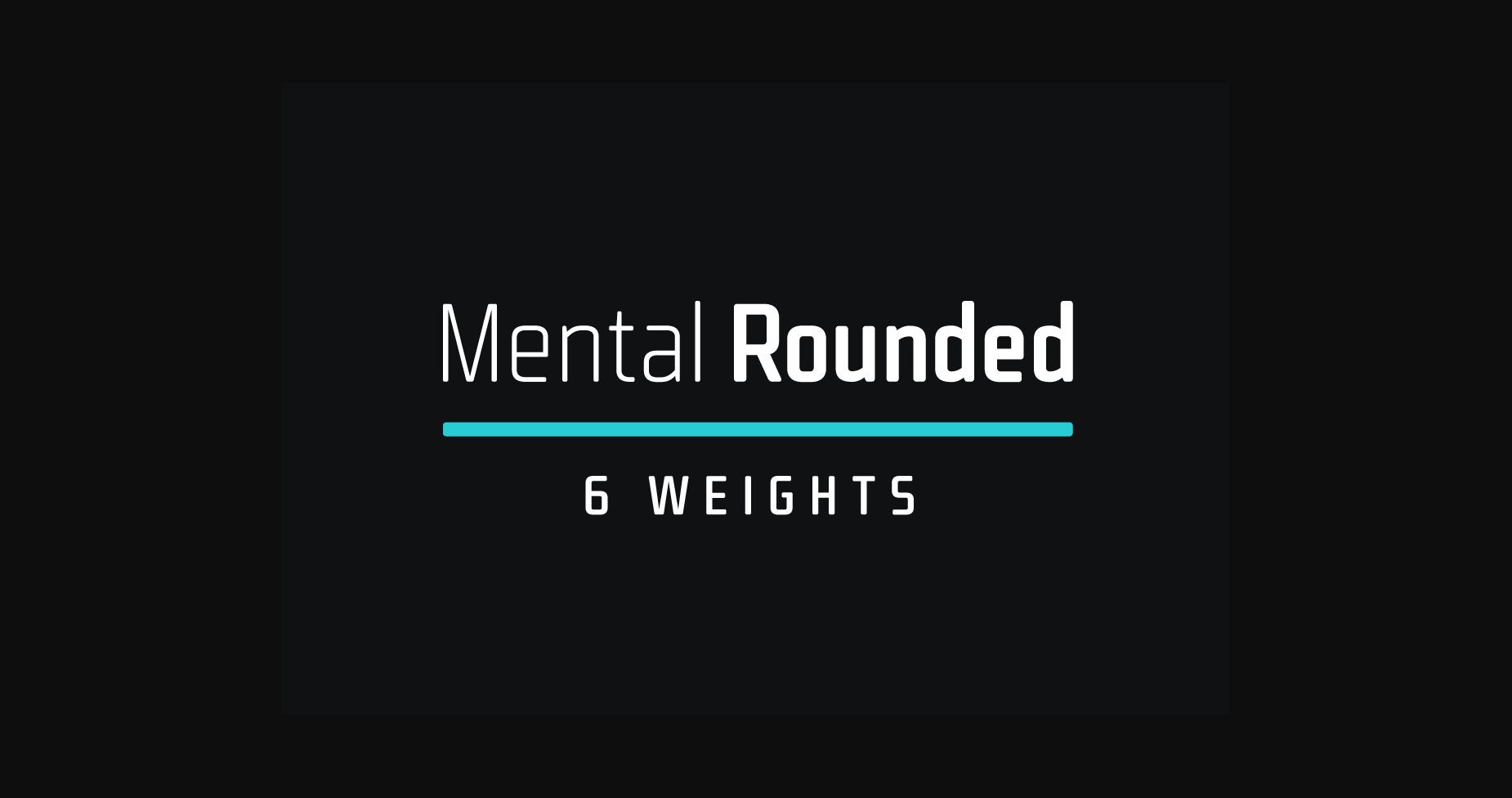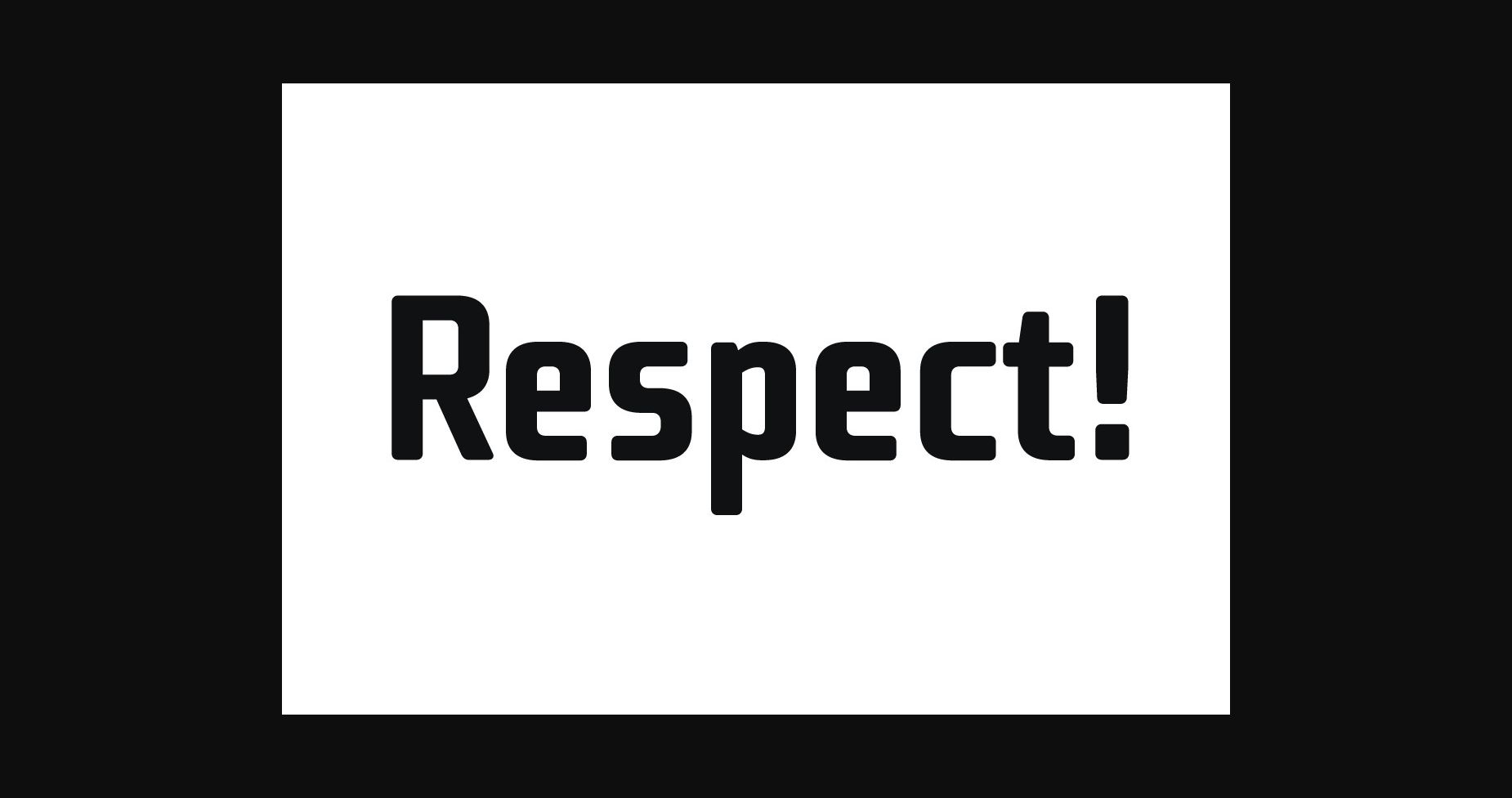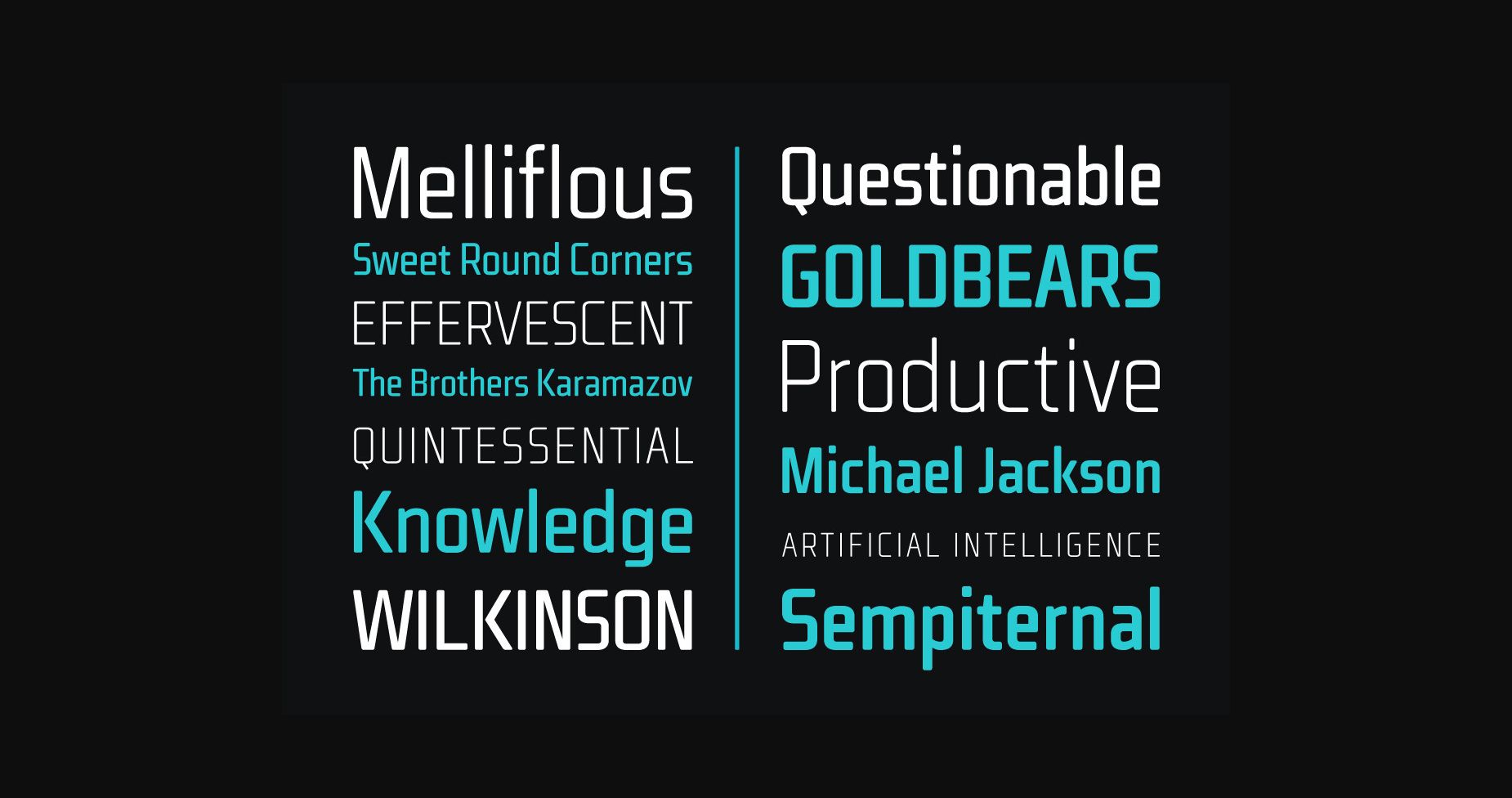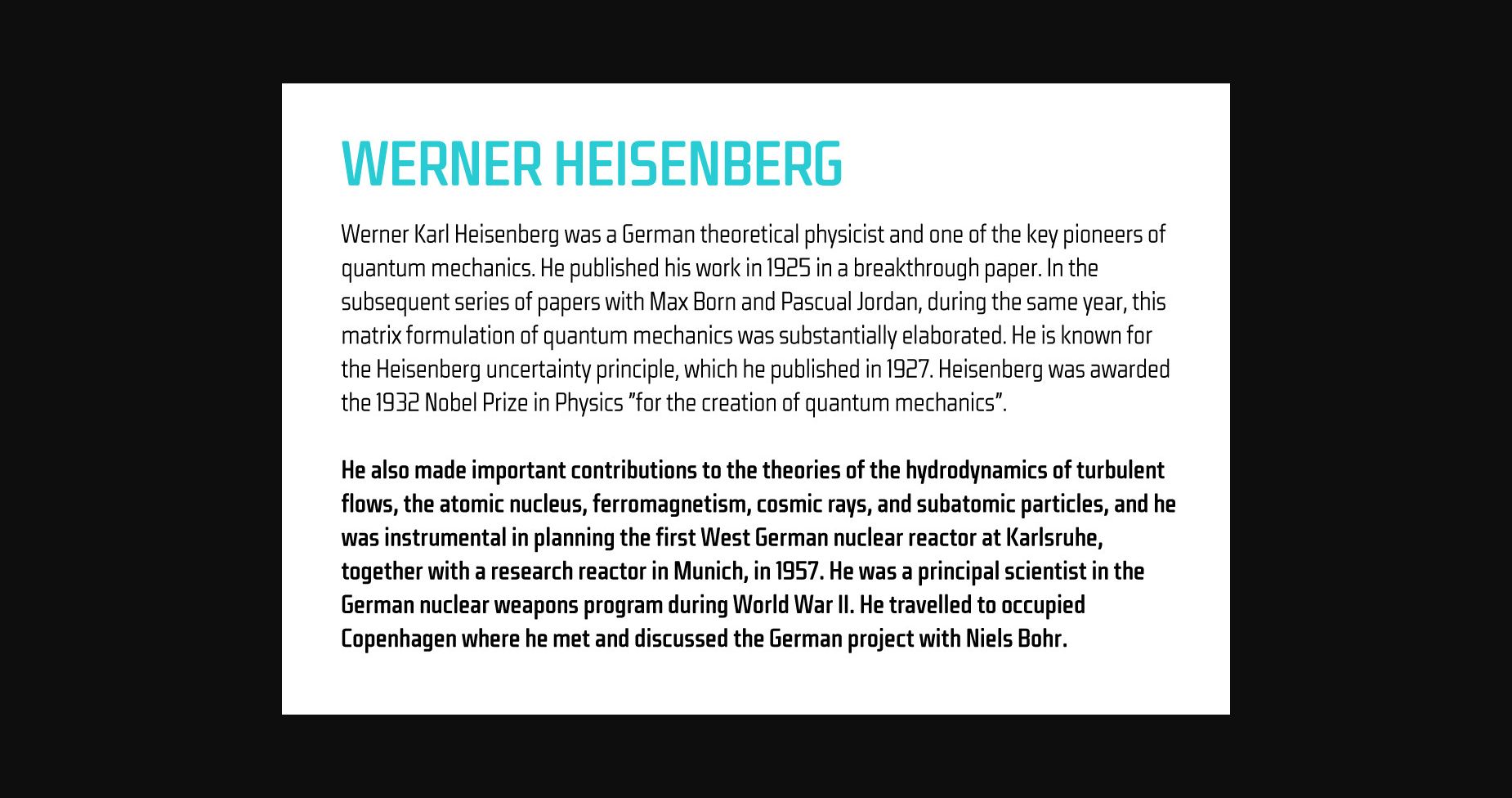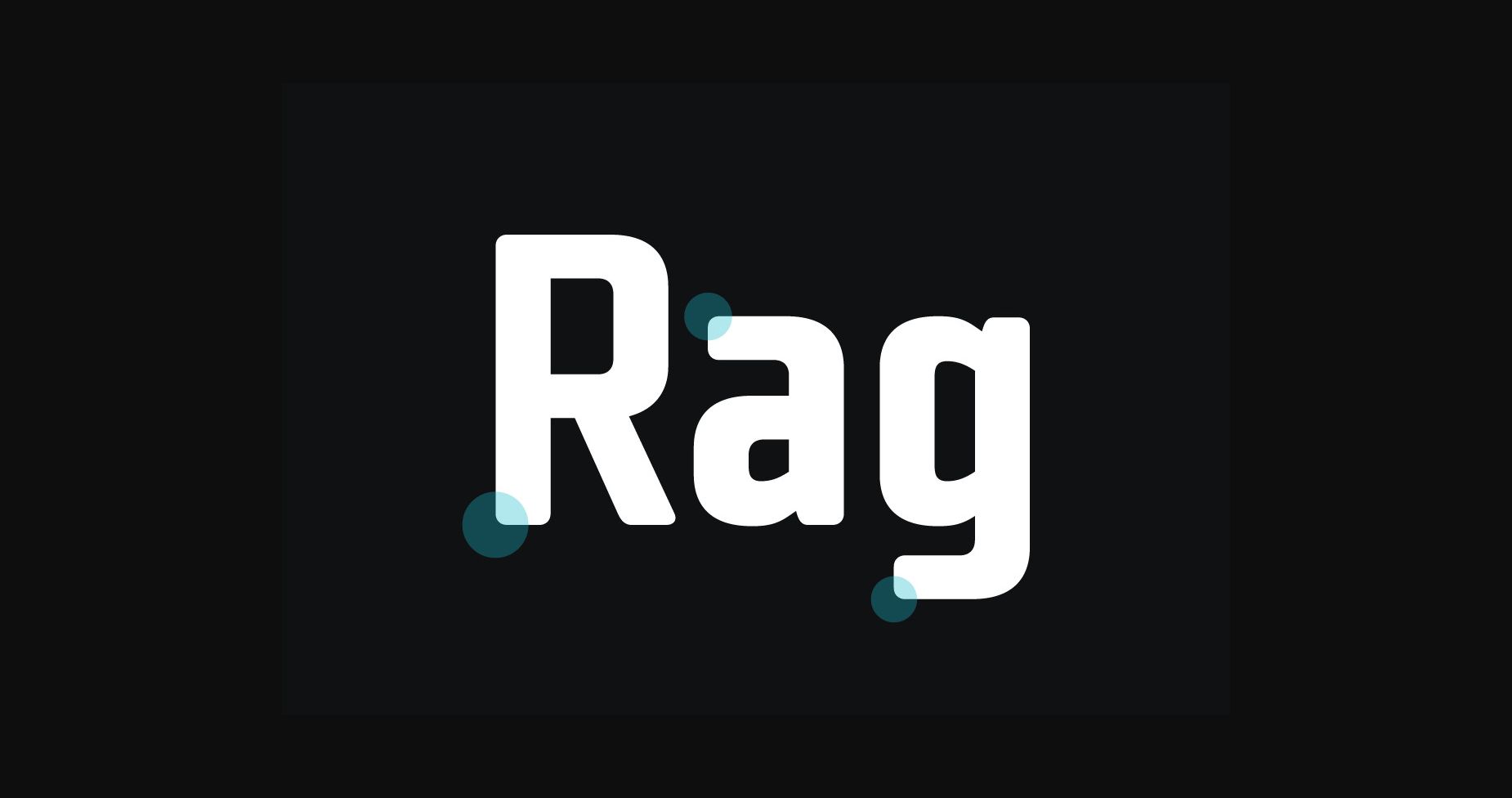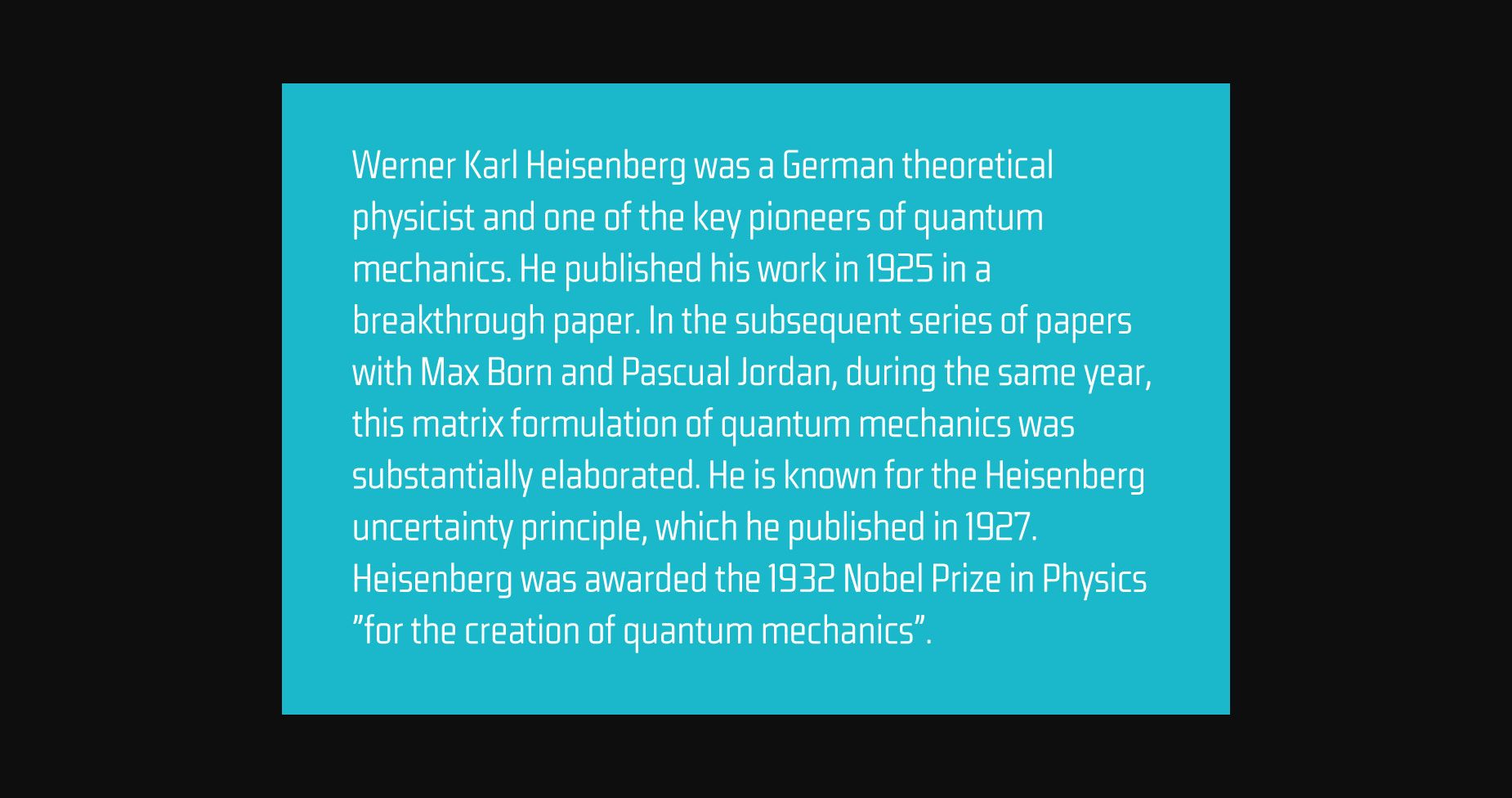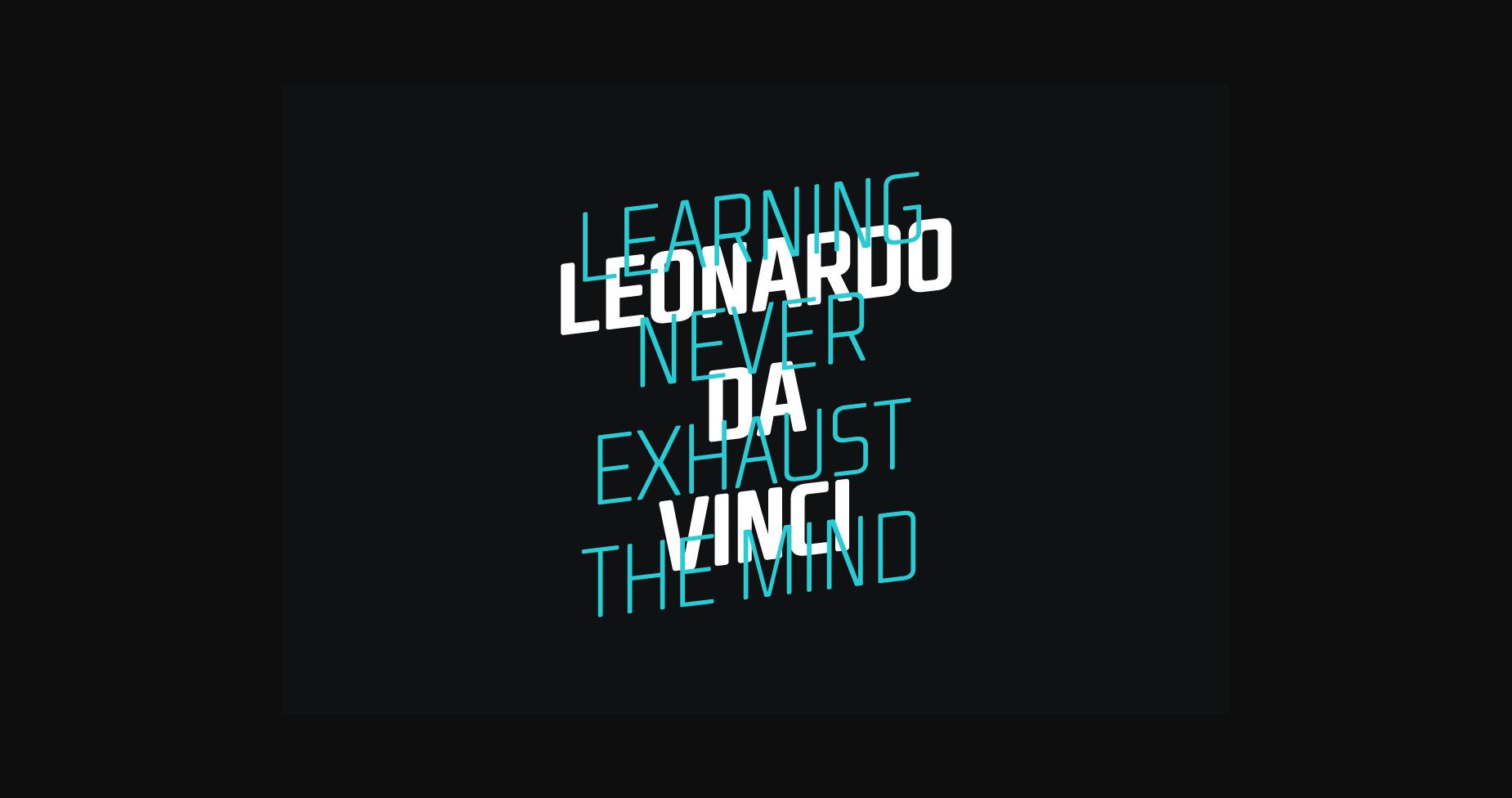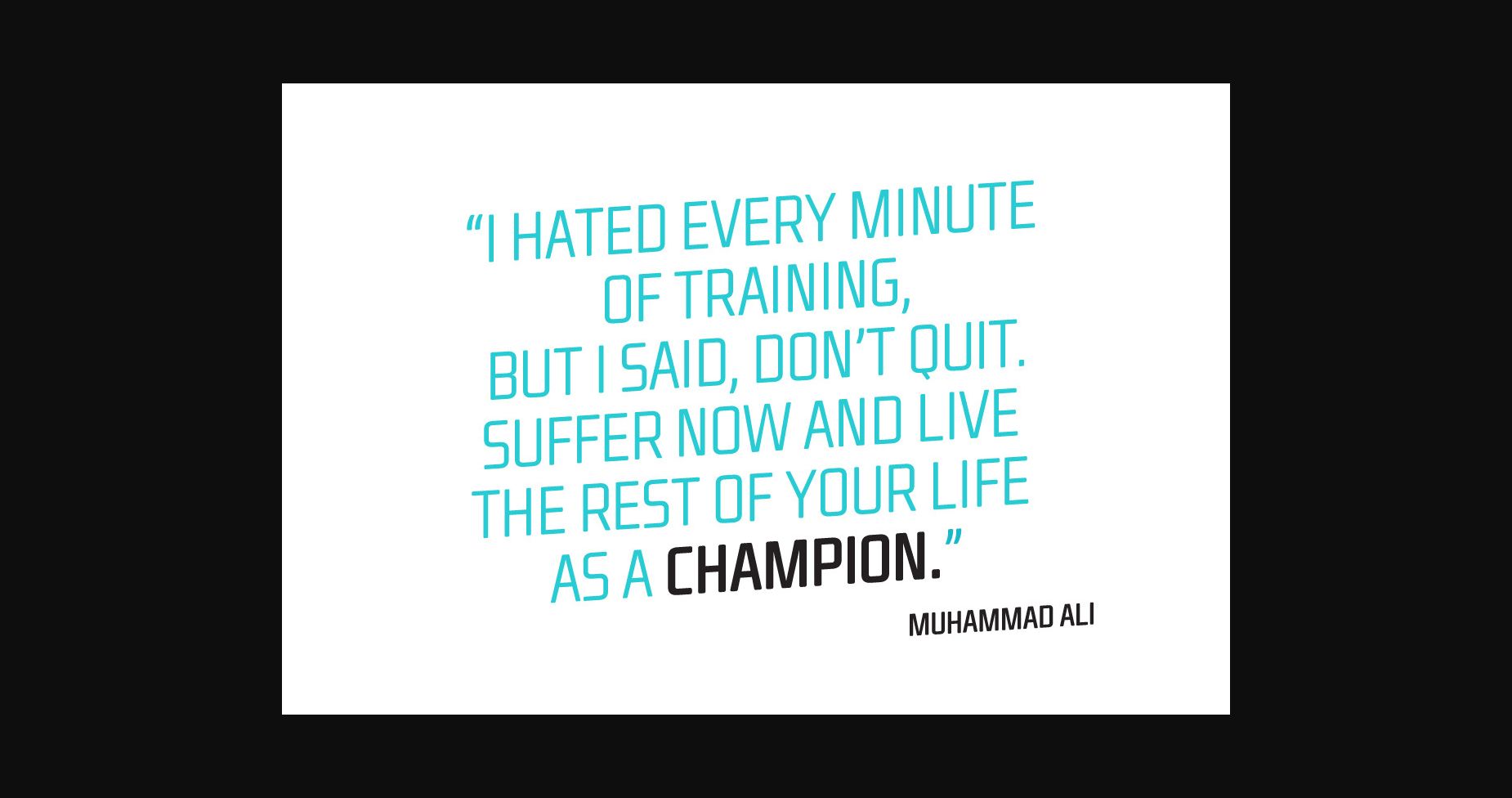
HomeSans Serif FontsMental Rounded Font Sans Serif Fonts Mental Rounded Font FacebookXPinterestWhatsApp 1 of 10 ... Mental Rounded Font Poster 2... Mental Rounded Font Poster 3... Mental Rounded Font Poster 4... Mental Rounded Font Poster 5... Mental Rounded Font Poster 6... Mental Rounded Font Poster 7... Mental Rounded Font Poster 8... Mental Rounded Font Poster 9... Mental Rounded Font Poster 10... About Mental Rounded Font Mental rounded is a condensed sans serif font family that comes in six weights. It is a great option for headlines, posters, logos, and many creative fields! DOWNLOAD NOW People also explored Dair Loosie Goosie Coffee Reco Font Monday Font Jungle Summer Font Business As Usual Ritchey Kish Font Adelfa Merrika Font 445 0 TagsMental Rounded Font Previous articleSureton Comics FontNext articleCasper Font LEAVE A REPLY Cancel reply Comment: Please enter your comment! Name:* Please enter your name here Email:* You have entered an incorrect email address! Please enter your email address here Website: Save my name, email, and website in this browser for the next time I comment. Personal Use Free Manbow Personal Use Free Read more about this font Shelly Personal Use Free Read more about this font Vivacious Personal Use Free Read more about this font Hearted Personal Use Free Read more about this font BLOG Free vs Paid Fonts: Why Investing in Premium Fonts Is Worth It Free vs Paid Fonts: Why Premium Fonts Are Worth It in 2025 The debate of free vs paid fonts continues in the design world. While... How to Install and Use Fonts on Windows, macOS, and Web Projects 5 Fonts That Will Dominate Design Trends in 2026 Transform Your Website: Elevate Your Typography with 7 Best Web Font Generators